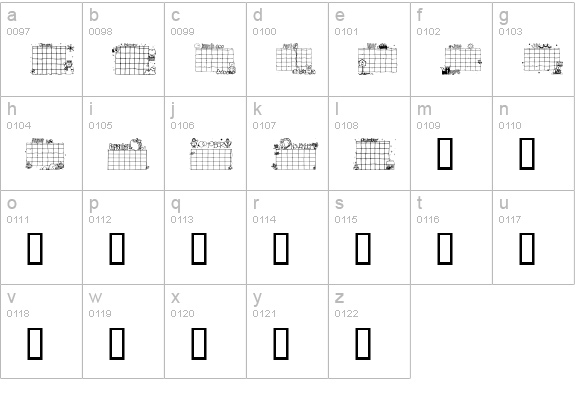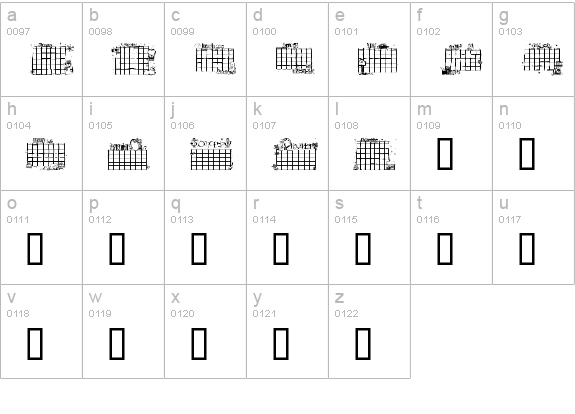
Calender Font Details
Introducing Calender Font, a versatile and stylish typeface perfect for adding a touch of elegance to your design projects. This beautifully crafted font is ideal for creating eye-catching calendars, posters, invitations, and more. With its clean lines and modern aesthetic, Calender Font exudes a sense of sophistication and professionalism. The best part? Calender Font is absolutely free to download at FontsMarket.com, making it accessible to designers of all levels. Whether you're working on a personal project or a professional design, this font will surely elevate your work and make a lasting impression. Don't miss out on this incredible opportunity to enhance your designs with Calender Font today!